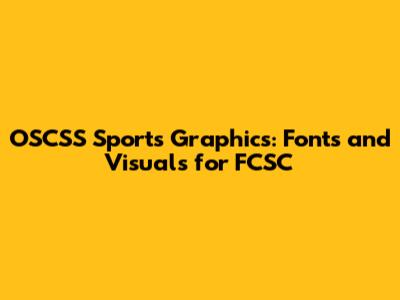
Hey sports fans! Ever wonder what goes into making those awesome visuals you see during a game? Today, we're diving deep into the world of OSCSS sports graphics, specifically focusing on the fonts and visual elements that bring the FCSC (presumably, a sports organization or team) experience to life. From the scoreboards to the graphics overlaid on live streams, everything is meticulously crafted to enhance your viewing pleasure and represent the brand. This is where the magic of design and branding really comes into play. We'll explore how these elements create a cohesive and engaging visual identity. We'll also examine how the fonts used, the colors chosen, and the overall graphic style contribute to a memorable and impactful experience for fans. This article is your ultimate guide, covering everything you need to know about the visual aspects of OSCSS sports graphics. We will also explore the different types of graphics used. Let's get started!
The Role of Fonts in Sports Graphics
Alright, let's talk about fonts, guys. You might not realize it, but fonts play a huge role in how we perceive information. Think about it: a font can be bold and assertive, sleek and modern, or even classic and traditional. Each style conveys a different message. In the context of OSCSS sports graphics, the choice of fonts is crucial for several reasons. First, readability is paramount. The graphics need to be easily understood at a glance, especially during fast-paced live events. Therefore, fonts are chosen for their clarity and legibility, even at a distance or on smaller screens. Secondly, fonts are critical for brand identity. They become a signature element, instantly recognizable as part of the FCSC brand. Think of it like a team's logo or colors – fonts become part of the visual vocabulary, fostering brand recognition and loyalty. Finally, fonts can be used to convey the mood and atmosphere. A strong, impactful font can create excitement, while a more subdued font might be used for informational graphics. The selection process involves balancing functionality, brand consistency, and aesthetic appeal. Choosing the right font is essential for success. It involves careful consideration of the audience and the message being conveyed. It’s not just about picking a font; it’s about crafting a visual language that speaks volumes. The goal is to ensure that the graphics are not only informative but also visually appealing and consistent with the overall brand image. It helps that viewers quickly and easily understand the information. That includes all of the information from player names to the team's scores.
Font Selection Criteria
So, how do designers go about choosing the right fonts for OSCSS sports graphics? It's not as simple as picking a favorite. There are several criteria to consider. Readability is key. The font must be easy to read at various sizes and on different backgrounds. This is especially important for on-screen graphics that need to be clear even when displayed alongside live action. Brand consistency is another major factor. The chosen fonts need to align with the FCSC's overall brand identity, complementing the logo, colors, and other visual elements. This creates a cohesive and professional look. Versatility is also important. The font needs to work well in various applications, from scoreboards to social media posts. The chosen font needs to be versatile. This ensures that the brand remains consistent across all platforms. Designers also consider the emotional impact of fonts. Different fonts evoke different feelings. The font used must reflect the team’s spirit. For instance, a bold, sans-serif font might convey energy and excitement, while a more elegant serif font might communicate tradition and prestige. Finally, designers consider technical aspects such as licensing, font weights, and character sets. The font must be compatible with the software and hardware used to create and display the graphics. It must also have the necessary range of characters. These considerations ensure that the font can be used effectively across all platforms. The entire selection process is very important. Every aspect must be considered. Fonts are a critical component for the success of OSCSS sports graphics.
Popular Font Types in Sports Graphics
Let’s take a look at some of the popular font types you'll often see in OSCSS sports graphics. Sans-serif fonts are incredibly popular due to their clean, modern look and excellent readability, particularly on digital screens. Fonts like Arial, Helvetica, and Futura are commonly used for their simplicity and versatility. They're great for displaying information quickly and efficiently. Bold sans-serif fonts are also used. These make the most of the screen space. Serif fonts have those little strokes at the end of the letters, known as serifs. These are a bit more traditional and can add a touch of elegance or a sense of history. You'll often see them used for headlines or team names, especially if the brand wants to convey a sense of heritage or prestige. Display fonts are more unique and stylized, often used for logos or special headlines. They are eye-catching, but less suitable for large blocks of text. These fonts are designed to stand out. The goal is to grab viewers' attention. The choice of font type depends on the specific needs of the graphic. Each font has its own unique uses. It helps ensure that the information is conveyed effectively. Designers choose the fonts that best meet the needs of each design.
The Visual Elements of FCSC Graphics
Beyond fonts, the visual elements in FCSC graphics are crucial for creating a cohesive and engaging experience. Think about the entire visual package, guys. It’s not just about the text; it's about everything that complements the text, making it visually appealing and informative. Let's explore the key elements that make up the visual language of sports graphics.
Color Schemes and Branding
Color schemes are a huge deal when it comes to branding and visual identity. The colors used in FCSC graphics are carefully chosen to reflect the team's brand. The chosen colors should also be very consistent. This consistency is essential for building brand recognition. These colors often align with the team's logo, uniforms, and overall visual identity. They evoke specific emotions. They also enhance the viewing experience. Colors can create a sense of excitement, energy, or even calm. The color palette must be carefully considered. It should be consistent with the team's brand. Color choices impact how viewers perceive the information. They also enhance the overall viewing experience. The use of color is a powerful tool. It should be used to create impactful graphics. Colors can also be used to highlight specific information. They can make certain elements stand out. This ensures that the message is clear and effective. It all helps viewers quickly grasp the most important information.
Imagery and Iconography
Imagery and iconography are also super important in sports graphics. The use of images, illustrations, and icons can add visual interest. They also convey information more effectively. Action shots of players, team logos, and other relevant images add visual appeal to the graphics. They help viewers connect with the team. They also enhance the overall viewing experience. Icons can be used to represent stats, player positions, or other key information. They do so in a concise and visually engaging way. A well-chosen image can capture the energy and excitement of the game. It can also evoke emotion. It helps viewers connect more deeply with the team and the sport. These elements create a visually rich and informative experience. They also help improve the overall viewing experience. The goal is to make the graphics both informative and visually appealing.
Motion Graphics and Animation
Motion graphics and animation have really changed the game in sports broadcasting. These are used to bring the graphics to life. They add an element of dynamism and excitement to the viewing experience. Animated transitions, animated logos, and other animated elements keep the viewer engaged. Motion graphics are used to introduce players, highlight key moments, and display information in a dynamic way. They make the graphics more visually appealing. They create a more immersive experience for viewers. They can also be used to add a touch of personality to the broadcast. This can help set the tone for the game. These elements make the graphics more dynamic. This helps make the broadcast more visually appealing and more engaging for the viewers.
Tools and Technologies in Sports Graphics Design
So, what tools do designers use to create these amazing visuals? Well, it varies, but here's a glimpse into the tech behind OSCSS sports graphics.
Software and Design Platforms
Designers rely on a variety of software and design platforms. These include Adobe Creative Cloud (Photoshop, Illustrator, After Effects), which are industry standards for creating and editing graphics. These tools offer powerful features for everything from image editing to motion graphics. There are also specialized graphics systems designed for live sports broadcasting, which allow for real-time data integration and on-air graphics production. These are designed to handle the unique needs of live sports. They ensure that graphics are displayed quickly and efficiently. These platforms are incredibly powerful. They allow designers to create visuals. The visuals are both stunning and informative. Using the right tools is critical to creating top-quality graphics. It is a key element of the process.
Hardware and Equipment
The hardware and equipment used are also vital. High-end computers, monitors, and graphics cards are a must to handle the demanding tasks of creating and rendering complex graphics. These systems provide the necessary processing power to run the software and produce high-quality visuals. In addition, specialized equipment such as video switchers, character generators, and other broadcast equipment are used. These tools allow for seamless integration of graphics into live broadcasts. They ensure that the visuals are displayed in a professional and polished manner. The hardware and equipment used play a crucial role. They help ensure that the graphics are both visually appealing and technically sound.